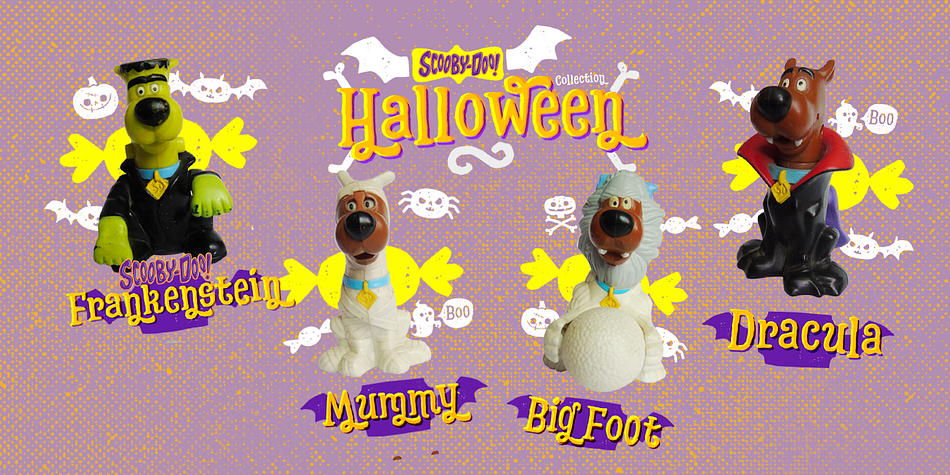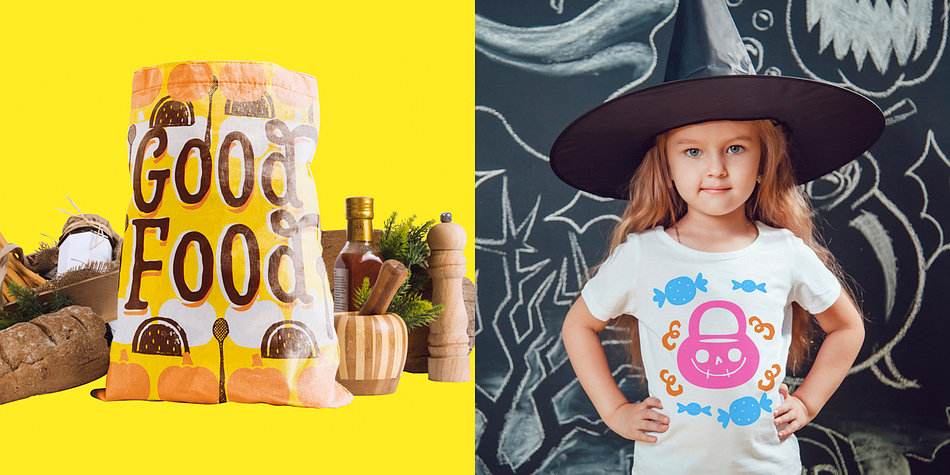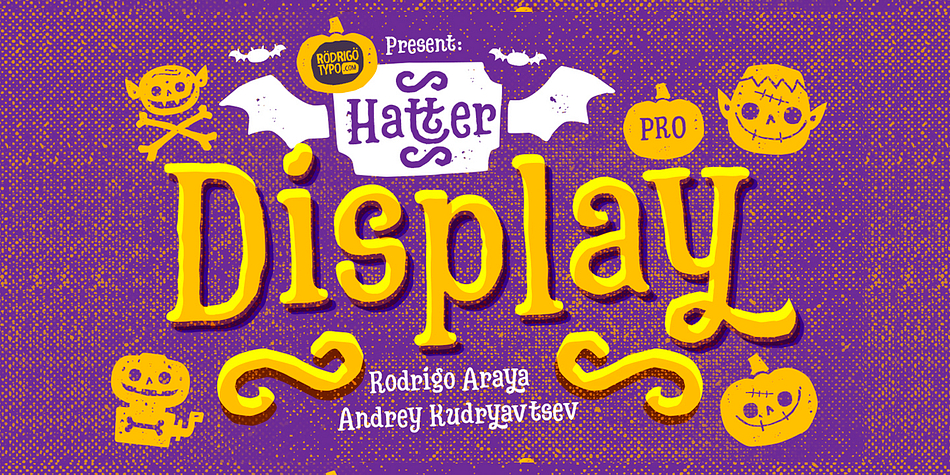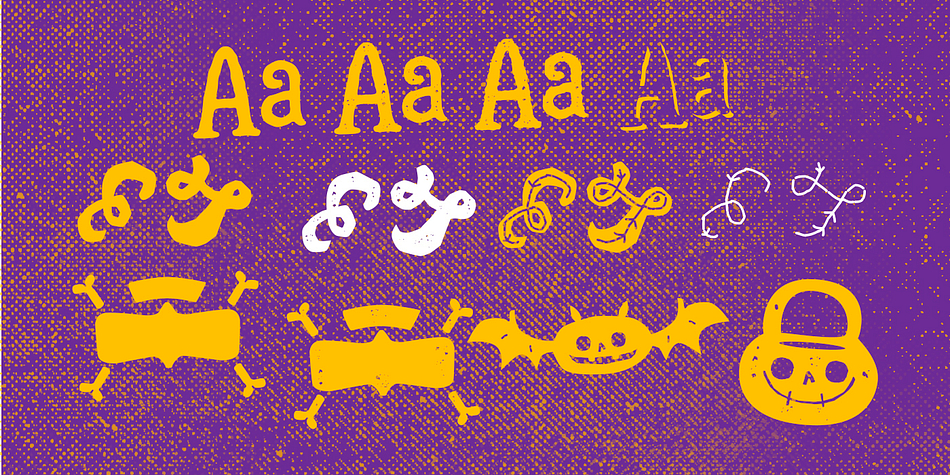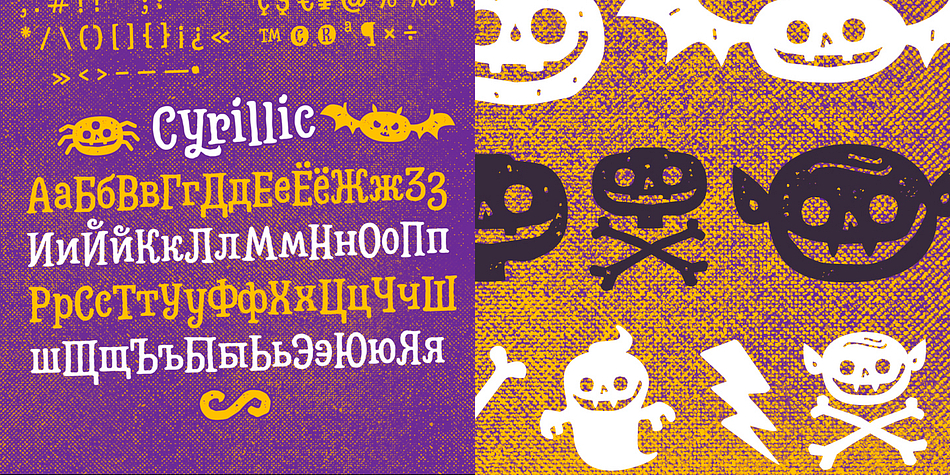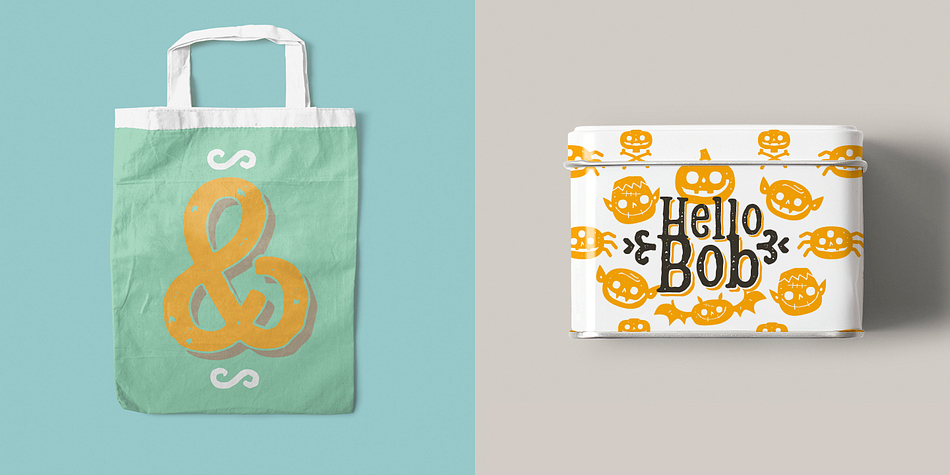
Designed by Rodrigo Araya Salas, Hatter Display Pro is a dingbat and hand display font family. This typeface has twelve styles and was published by Rodrigo Typo.
This is the most complete and final version of Hatter, it contains more than 12 fonts, among them it contains Cyrillic, Swash, Alternatives, Dingbats, Ornaments, all to make an entertaining graphic.